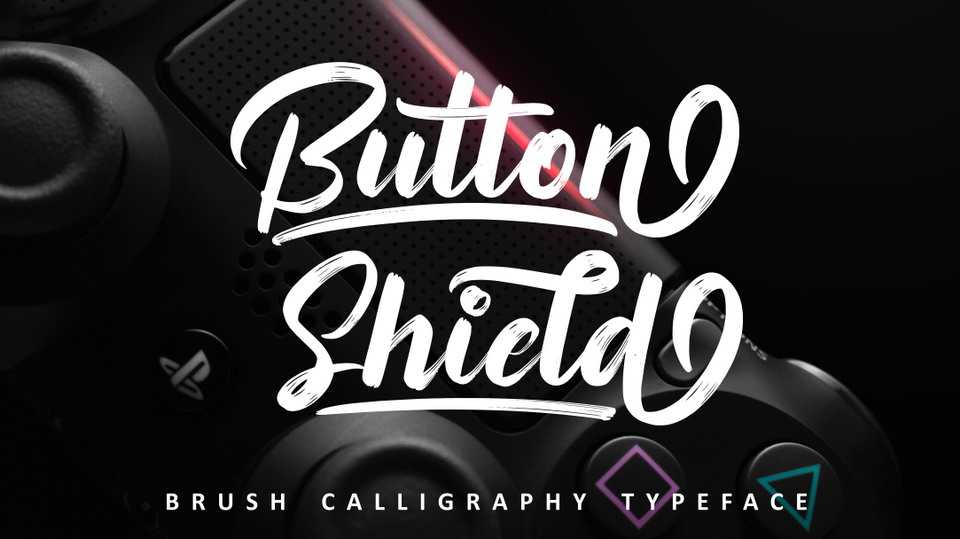
Download Button Shield font, a stylish hand painted brush script. Its unique flow and style makes it perfect to use for prints, logos, quotes, badges, labels, packaging design, blog headlines or simply use it to add a fancy text on a photo.